20 of the best typefaces released in November 2014
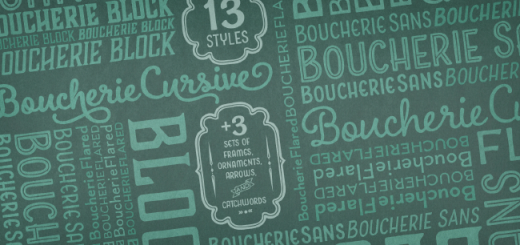
Sean Mitchell is an interactive designer based in Vancouver, British Columbia, and the editor of Type Release. November brought us a month of diverse typefaces, from modern to classic, san-serif to serif, lightweight to heavy. Here’s our picks from the past month. Rene Bieder: Galano Grotesque is a geometric sans in the tradition of Futura, Avant Garde, Avenir and the like. Linotype: DIN Next Slab harmonizes perfectly with the styles of DIN Next: the basic letterforms and weights are identical. FontFont: FF Milo Slab is the newest edition to Mike Abbink’s best selling FF Milo…